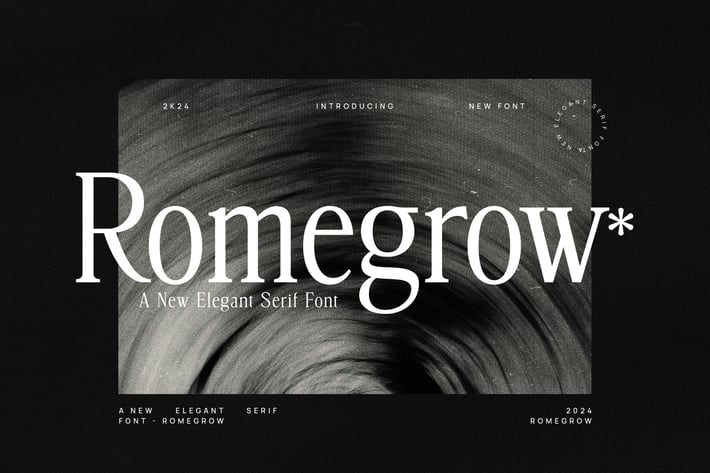
Romegrow - Elegant Serif Font
Introducing our new Romegrow, modern serif font with elegant style this is perfect for branding, logos, invitation, magazines, product packaging and more.